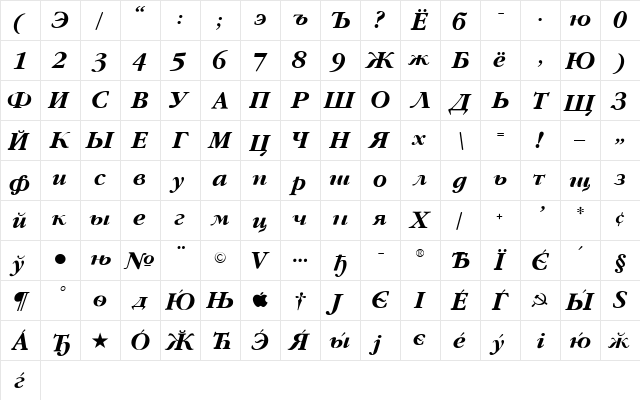
GaramondFLFCyrillic-BolIta Regular
Design Context for GaramondFLFCyrillic-BolIta Typeface
GaramondFLFCyrillic-BolIta takes a measured approach to typography — its balanced proportions and neutral character make it a reliable workhorse for both digital and print work.